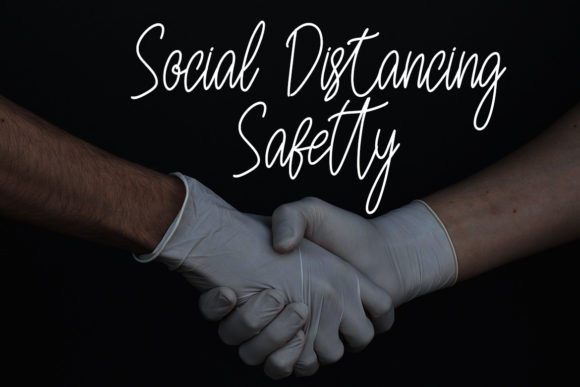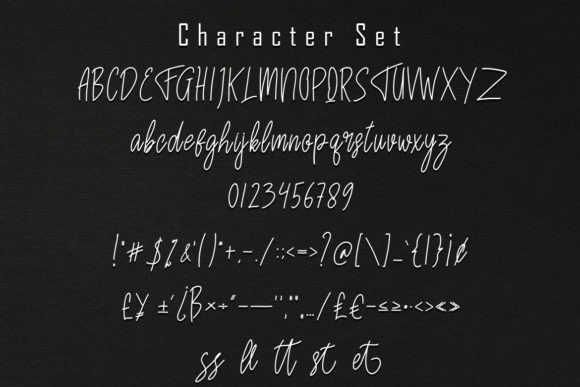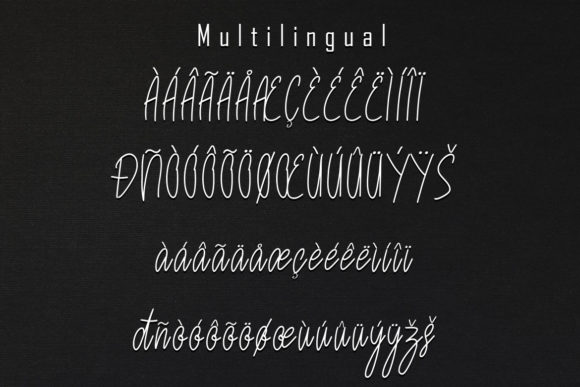
Discover the Secret to Elevating Your Designs with the Fast Set Font
Have you ever been in the middle of a creative project, staring at a blank canvas or screen, and suddenly, an idea strikes? The perfect font, the perfect color palette, the perfect composition – it all comes together in a flash of inspiration. For designers, this moment is what makes all the late nights and early mornings worth it. And that’s exactly what the Fast Set Font is designed to bring to your work: a burst of elegance and sophistication that elevates your designs to the next level.
With its classy calligraphic influences and contemporary feel, the Fast Set Font is the perfect tool for making original and outstanding designs. Whether you’re a seasoned pro or just starting out, this font is a valuable addition to your toolkit. It’s the key to unlocking a world of creative possibilities and taking your designs to new heights.